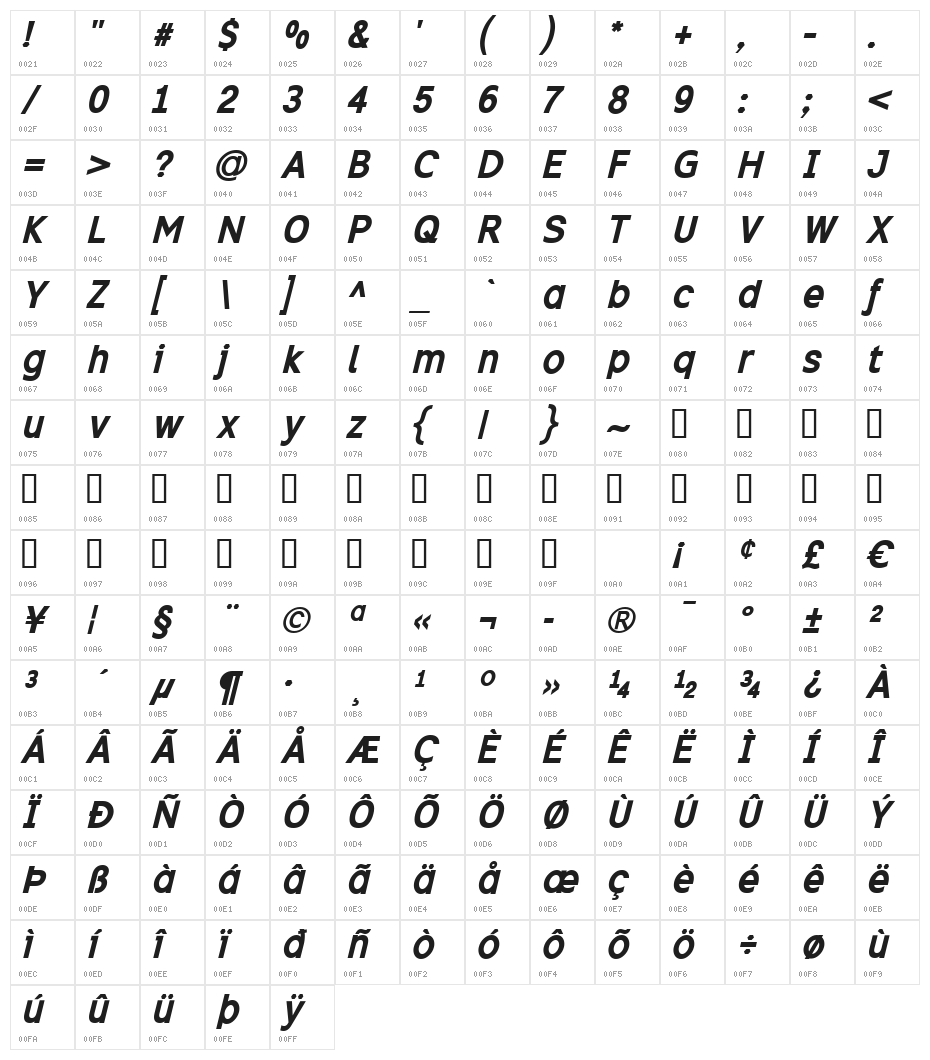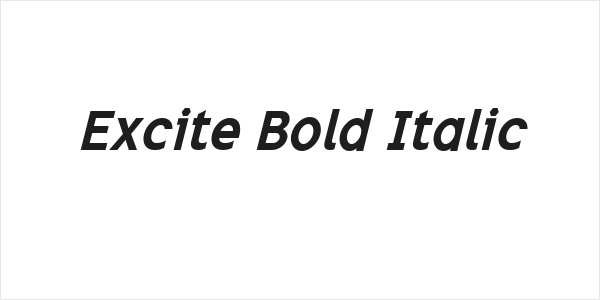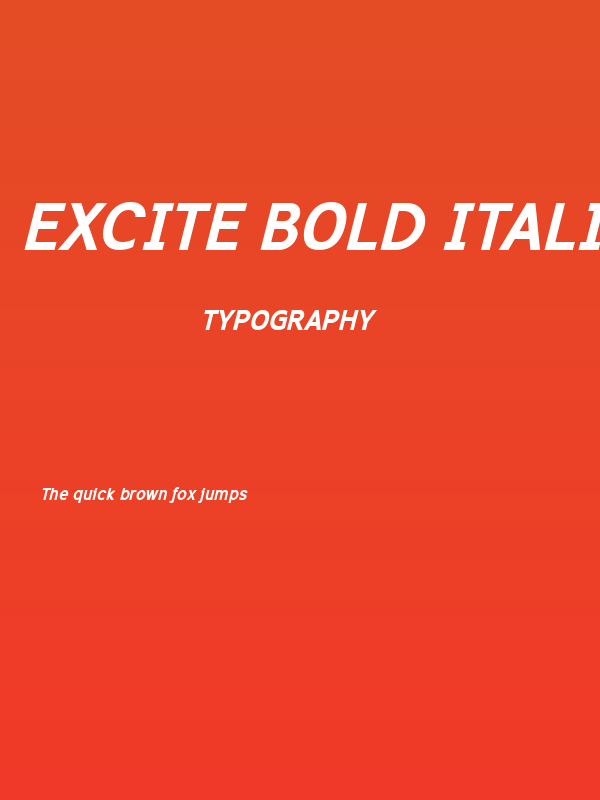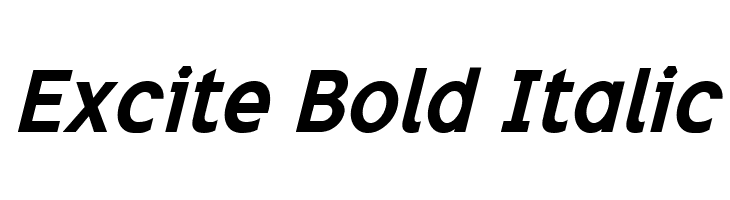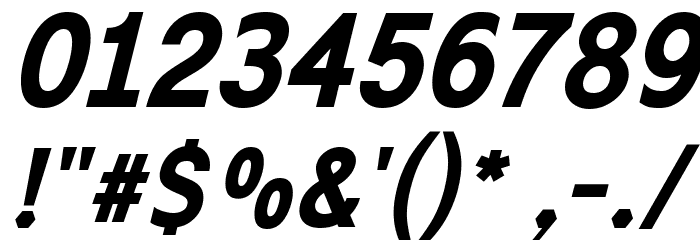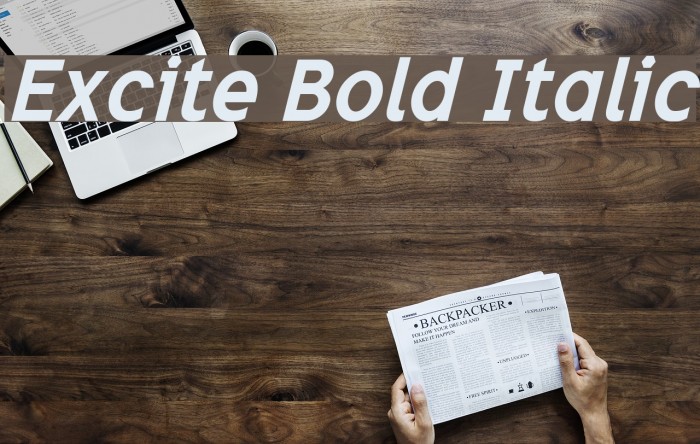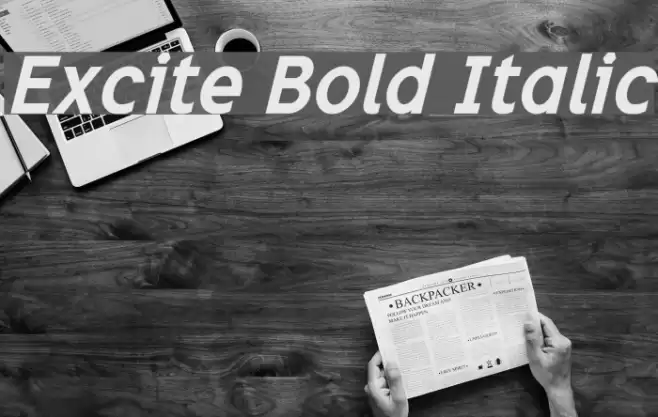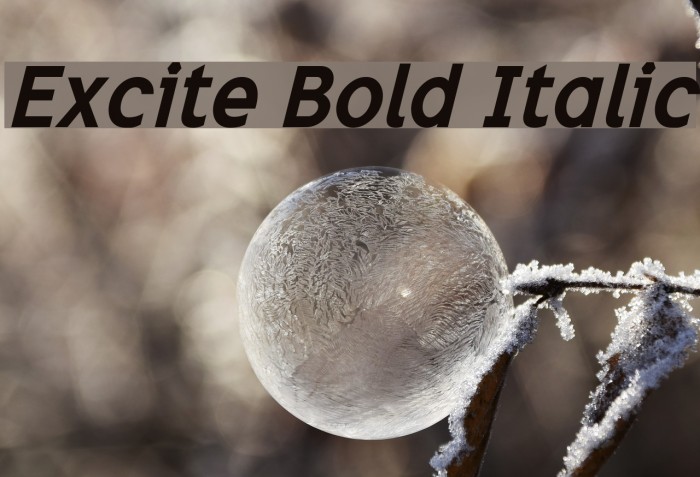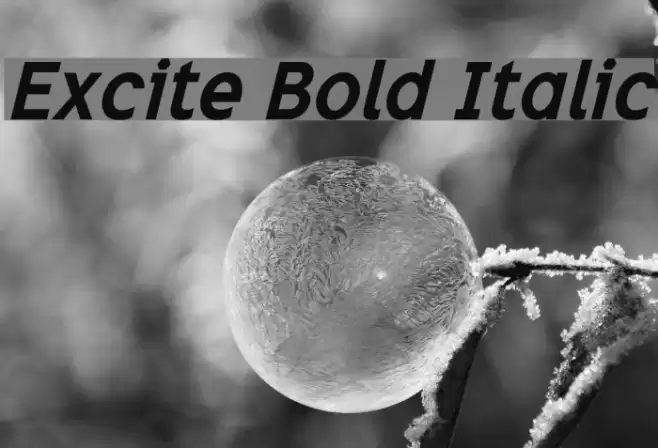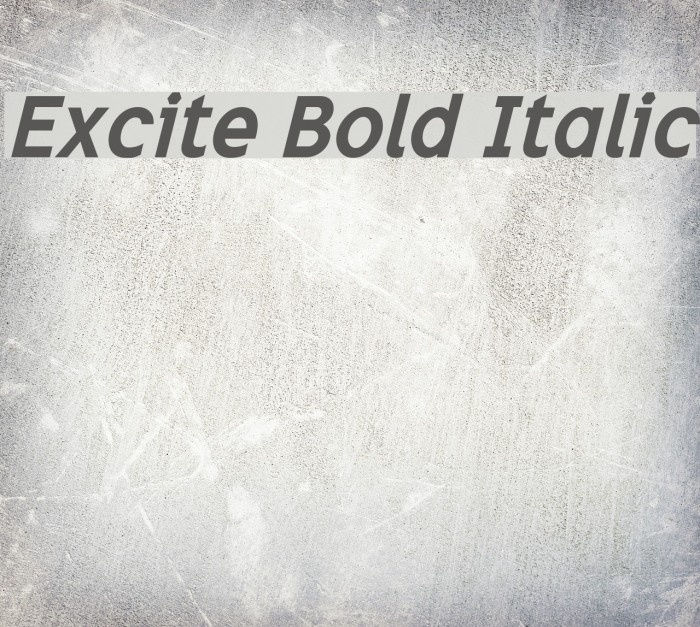
Excite Bold Italic Font
Excite Bold Italic Description
This font features a bold and italicized style, characterized by its strong and dynamic appearance. The letters are slightly slanted, adding a sense of motion and energy. The strokes are thick and consistent, providing a robust and impactful look. The font maintains a clean and modern aesthetic, making it suitable for a variety of design applications. The character spacing is normal, ensuring readability while maintaining a compact appearance. The numbers and special characters are designed with the same boldness and slant, ensuring uniformity across all elements.
| Proposed Projects | Ideal for headlines, advertising materials, branding, and logo design where a strong and energetic impression is desired. |